Words have power, and typography is their voice
For centuries, type has been how we ‘hear’ what we read. It’s also generally understood that typefaces and typography are a core element of branding, of expression, of vocal range. Great typography influences understanding, mood, and meaning in countless ways and is an essential part of design. Unfortunately, for many years after the advent of the web, we were unable to apply all but the most basic of typographic design to online content. With the ability to use real fonts and OpenType features — like ligatures, specific figure sets, fractions, and true kerning — the typographic landscape improved tremendously. But the reality of viewing content on the web dictates that speed is the most critical aspect of design — so we’ve traded typographic ‘vocal range’ for page speed. That means fewer font weights and reduced brand fidelity and voice.
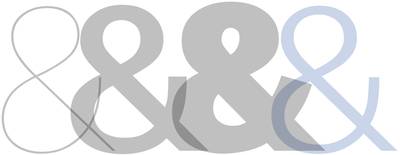
From many, one (paradigm: shifted)
A variable font is a single font that acts as many
—John Hudson
The advent of Variable Fonts changes that entire dynamic. As described by John Hudson, a variable font is a single font that acts as many: all the variations of width and weight, slant, and even italics can be contained in a single, highly efficient and compressible font file. What’s more: the format (which is technically part of the OpenType 1.8 specification) is completely extensible. The type designer has complete control over what axes are used, their ranges, and even the definition of new axes. There are currently 5 ‘registered’ axes (width, weight, slant, italics, and optical sizing), but the designer can vary any axis they choose. Some examples include the height of ascenders and descenders, text grade, even serif shape. The possibilities are nearly limitless. By removing the performance barrier, we open the door for more interesting and dynamic design and far greater ability to express the true voice of the brand. All this while maintaining fidelity to the typeface itself: only axes exposed by the type designer can be varied. No artificial distortion allowed.
Web design, reinvented
While the technology is still maturing and type designers are working to become more fluent in this new way of working, the promise for design on the web is ground-breaking. The typical scenario would be to constrain any given design to 3–5 different fonts to represent every aspect of a site’s design language and voice — including every permutation for body copy and headings. At its simplest implementation, variable fonts would give us the freedom to use different weights for every level of heading — greatly increasing their clarity and readability.
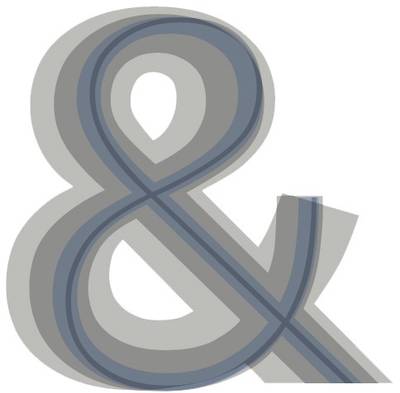
One could also use slightly narrower character widths for headings or on data-dense displays of information. In fact the entire typographic system could be designed to be proportional: weight and width could become multipliers on the standard body copy settings. Doing so would allow those aspects to scale easily along with the body copy should its settings change based on screen size or user preference. All of this with an accompanying increase in performance due to fewer HTTP requests (fewer font files) and an overall savings of data to download (though that will vary by font and compression used).
But while these freedoms allow us to be more expressive, some of the really interesting capabilities will help transform the reading experience itself. This page (well, the actual demo page itself) has been set with a new variable font version of FF Meta, the classic sans-serif design by Erik Spiekermann first released in 1991. Even with only one axis of variation (weight) of both roman and italic variants, a wonderful range of voice can be achieved with massive gains in performance: 18 files and over 288k replaced with a single file of only 84k.
Reinvented reading on screen
[Meta] has to do more than look pretty: it has to work pretty hard
—Erik Spiekermann
Some of the biggest challenges in creating a good reading experience are tied to the lack of finesse in proportion and fine details. The combination of modern CSS and OpenType features and variations presents a powerful combination. Being able to set features like ligatures and hyphenation based on language, turn hyphenation on and off based on screen size, and even tailor the character width on the smallest screens in order to fit more characters per line without reducing font size can make dramatic improvements in the smoothness and comfort of the reading experience.
Ready for a close-up
Another feature that was common in metal type but lost in translation to photo-typesetting and digital was optical sizing (well, some designers do still create separate optical sizes for different ranges, but it’s rare and somewhat limited). Not as often found on sans-serif designs, but in decades past (in truth, for centuries), it was quite common for the physically smaller sizes of a typeface to be cut with slightly heavier strokes, more open bowls and counters, and in some cases even wider apertures in order to preserve readability. Newspapers in particular found this critical to ensure lines didn’t get lost or letters didn’t suffer too greatly from ink gain.
Optical sizing has made a return in variable fonts, and can be automatically applied where available, or set explicitly by the web designer or developer. As mentioned, it’s not as frequent a feature in sans-serif typefaces like this one, but can be used to quite dramatic effect in higher-stroke-contrast serif designs.
Polish and poise
With the benefits already discussed, the case for variable fonts is pretty compelling. But good typography isn’t all there is to great design. The range of axes like width and weight give us tremendous freedom to embrace more editorial design on the web without having to load an exorbitant number of file assets. And since we already have those few required variable fonts in place, the opportunity is to expose them for use by content publishers themselves. Imagine a role for designers inside the Content Management System (or CMS) where the website is housed. That designer could use some simple controls built into the CMS that would allow them to typeset specific headlines or pull-quotes, enabling a whole new level of design much like what we have in print, without having to write custom code every time.
We may still be at the dawn of this new era, but it’s future is certainly bright
As of May 2018, 3 out of 4 major web browsers already support variable fonts, in addition to both dominant mobile platforms (check support on caniuse.com). With that in mind, we’re ready to start lighting up the web today.
[Monotype recently engaged me to write and design a demonstration page to feature a new variable font release of the classic Erik Spiekermann design FF Meta. This is the text of that page and some of the visuals. The full live page is hosted on CodePen and embedded above. It’s open to all, so feel free to make a copy and play with it yourself. You can see their introduction to the technology as well.]